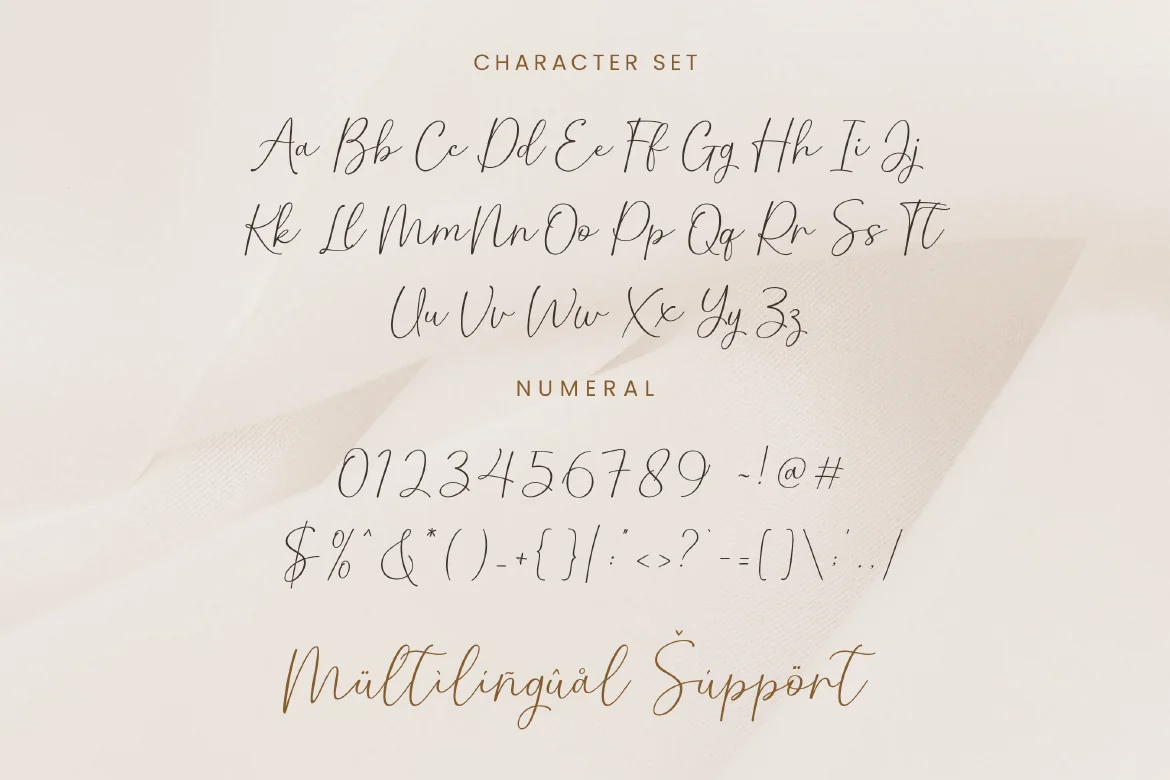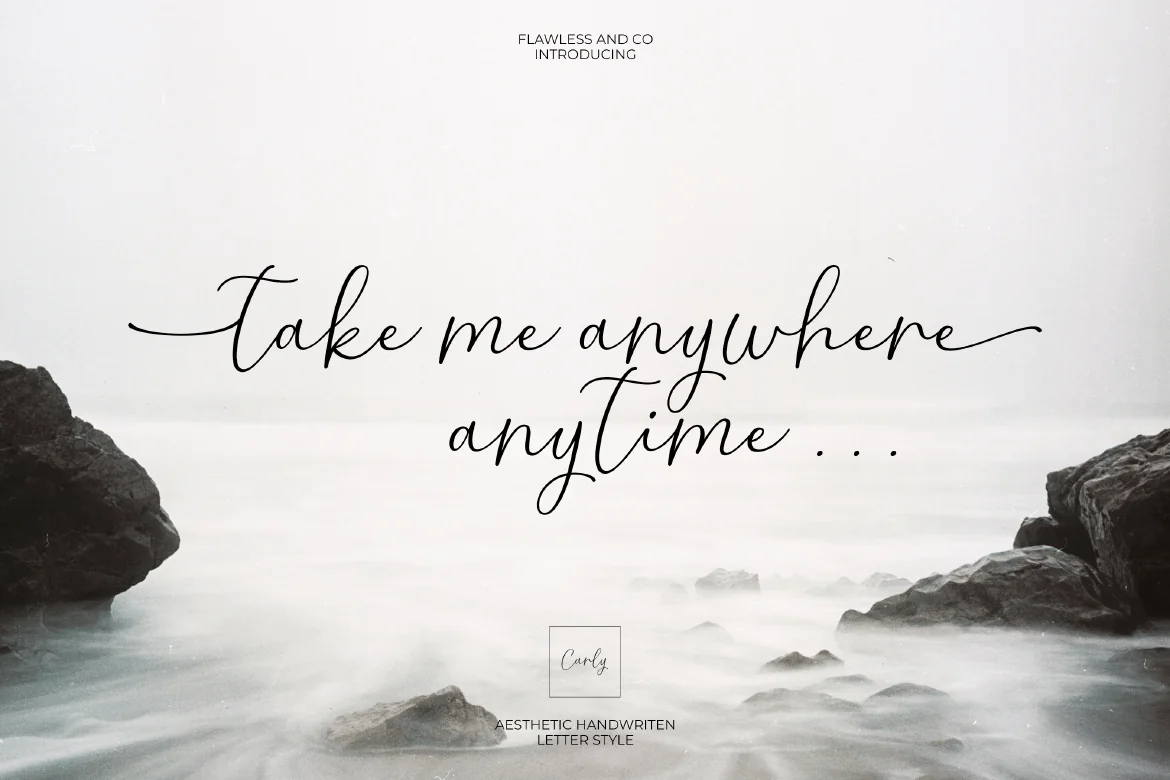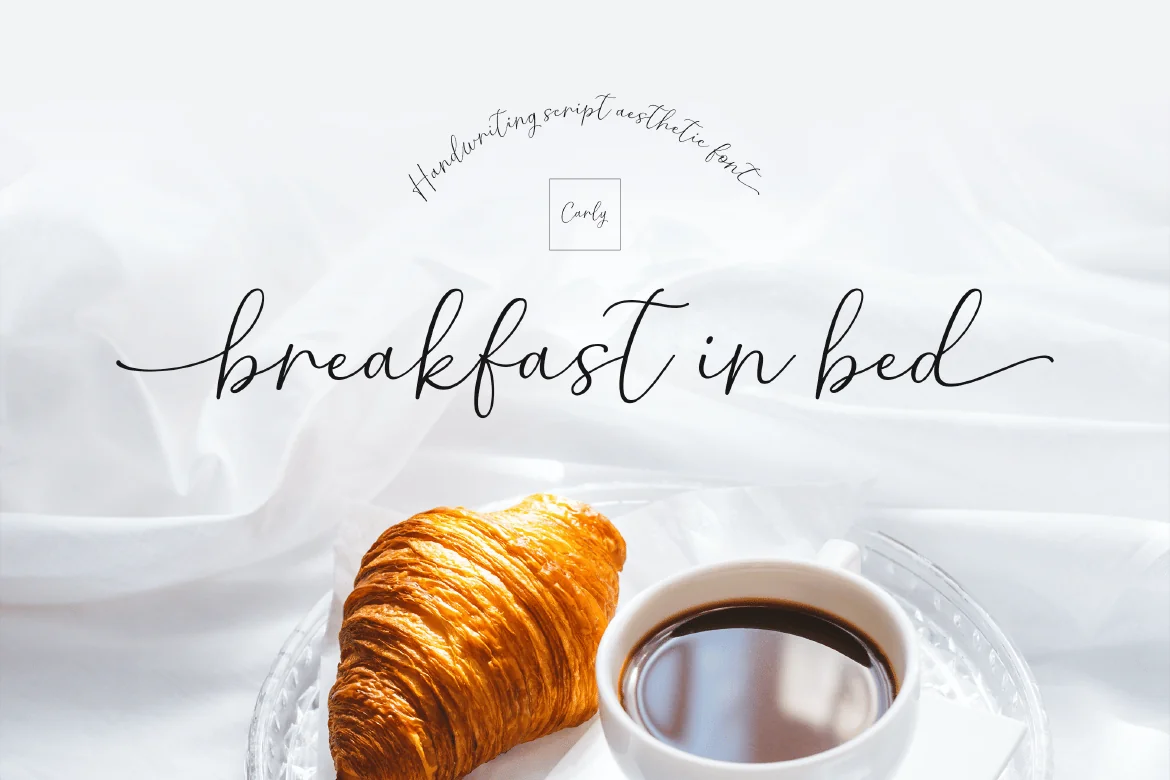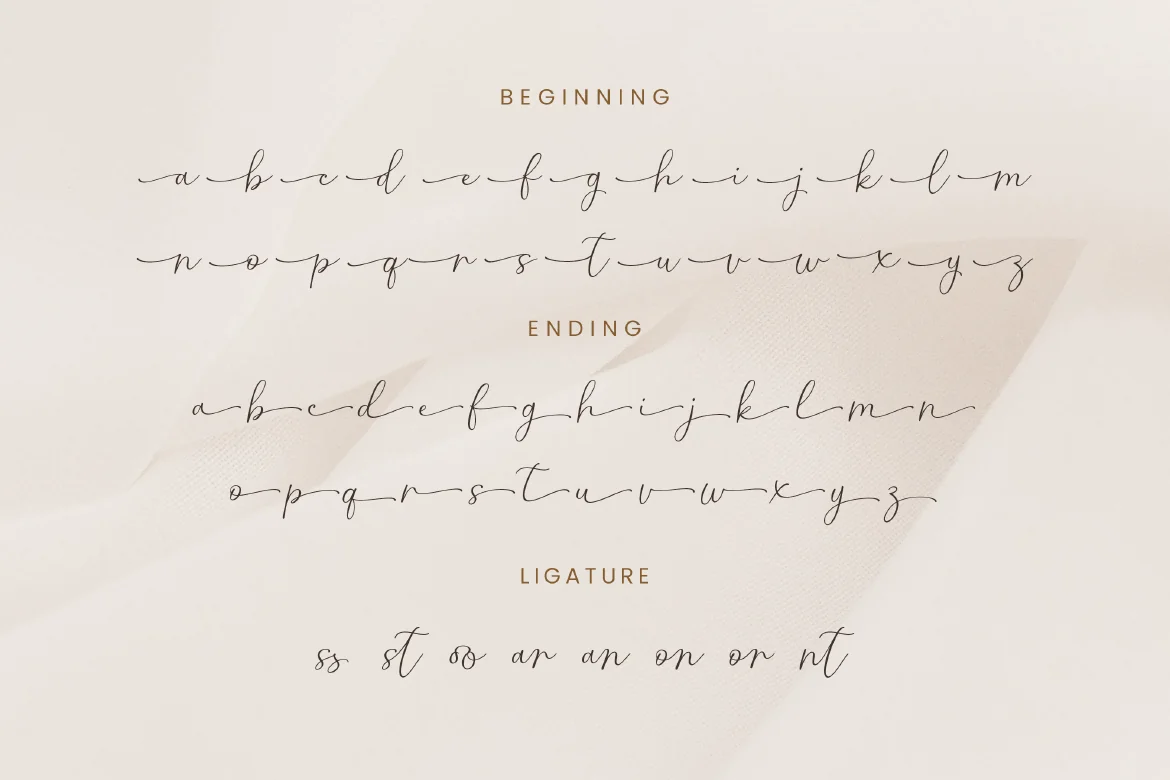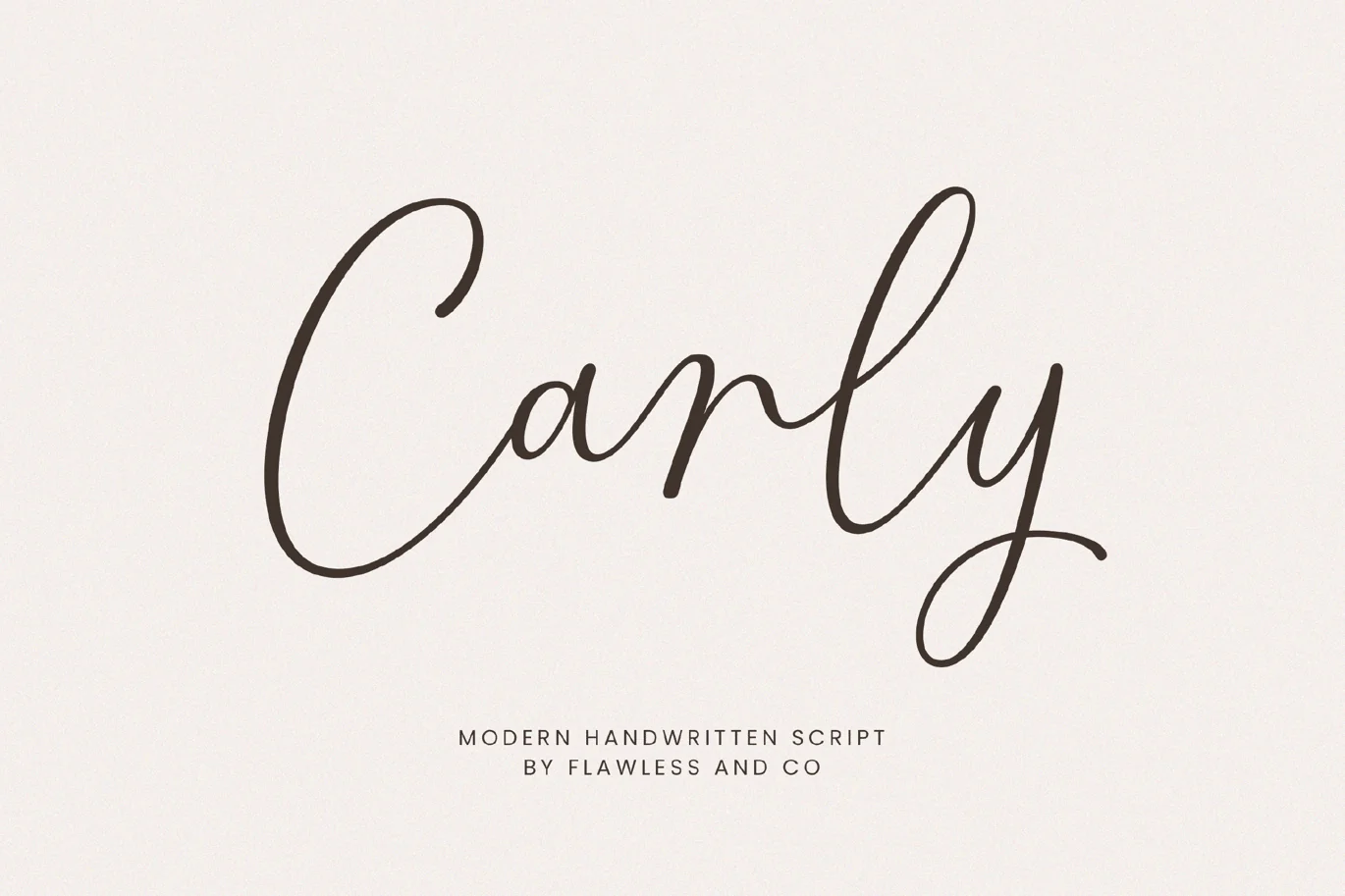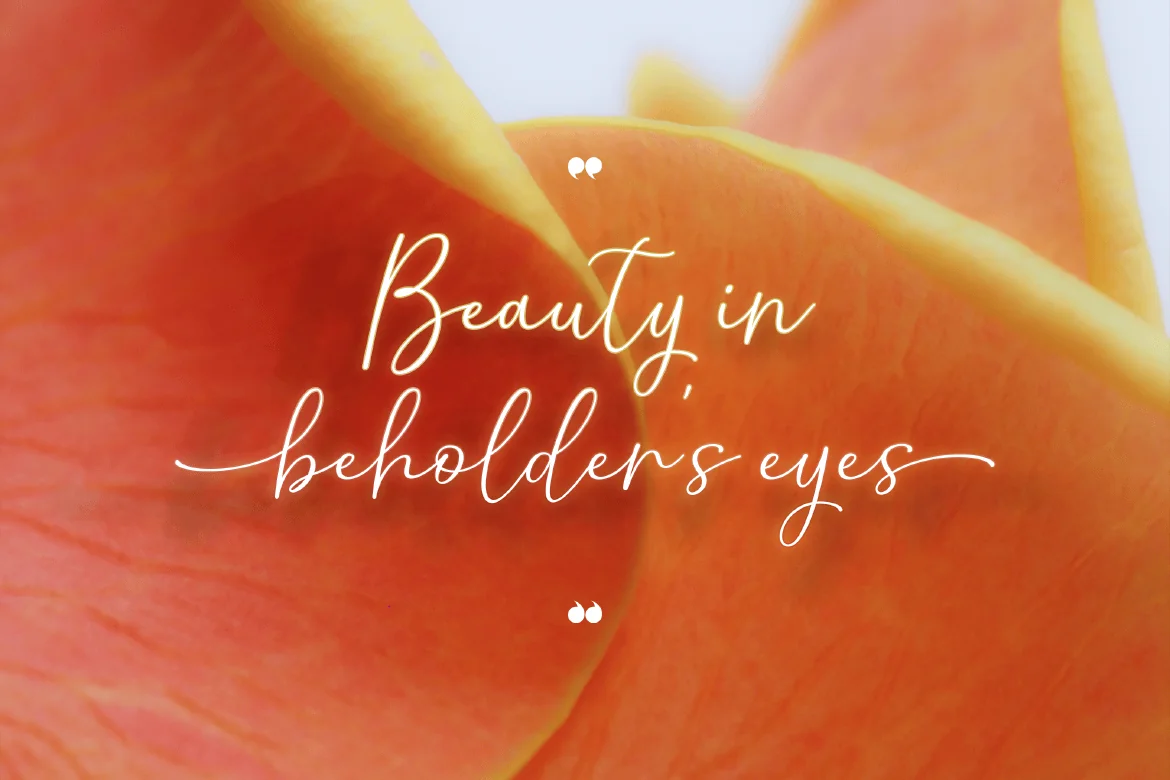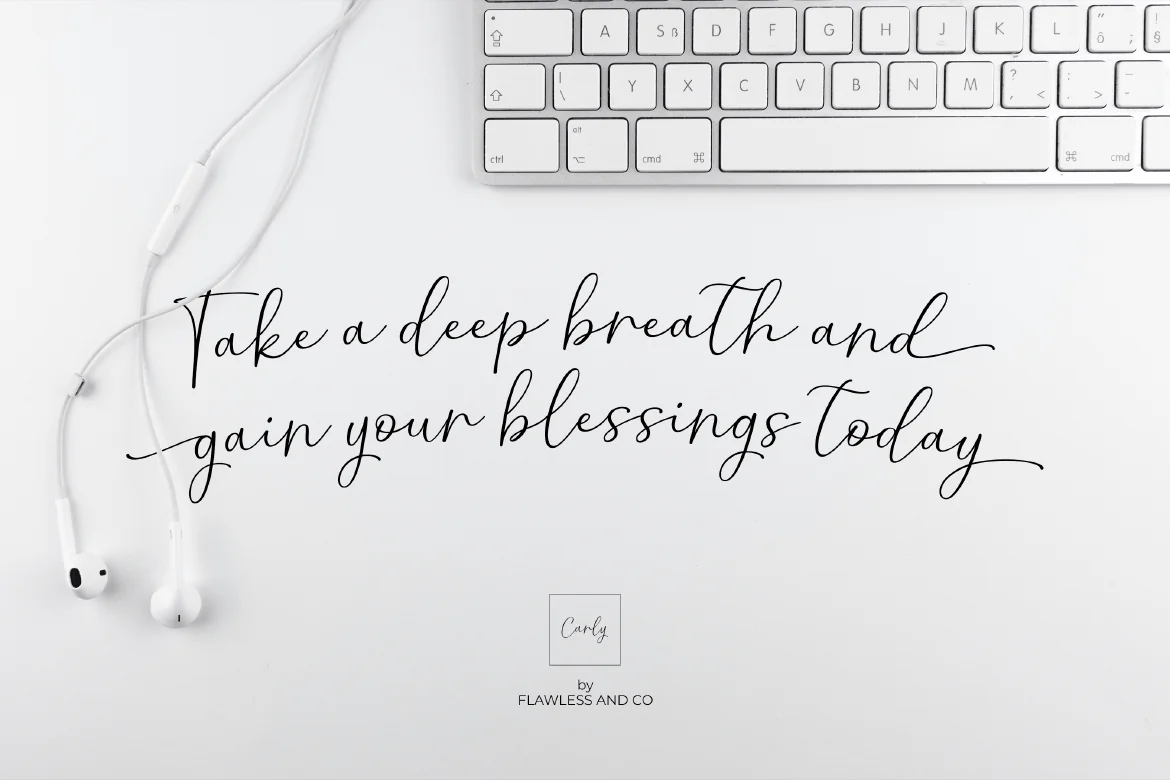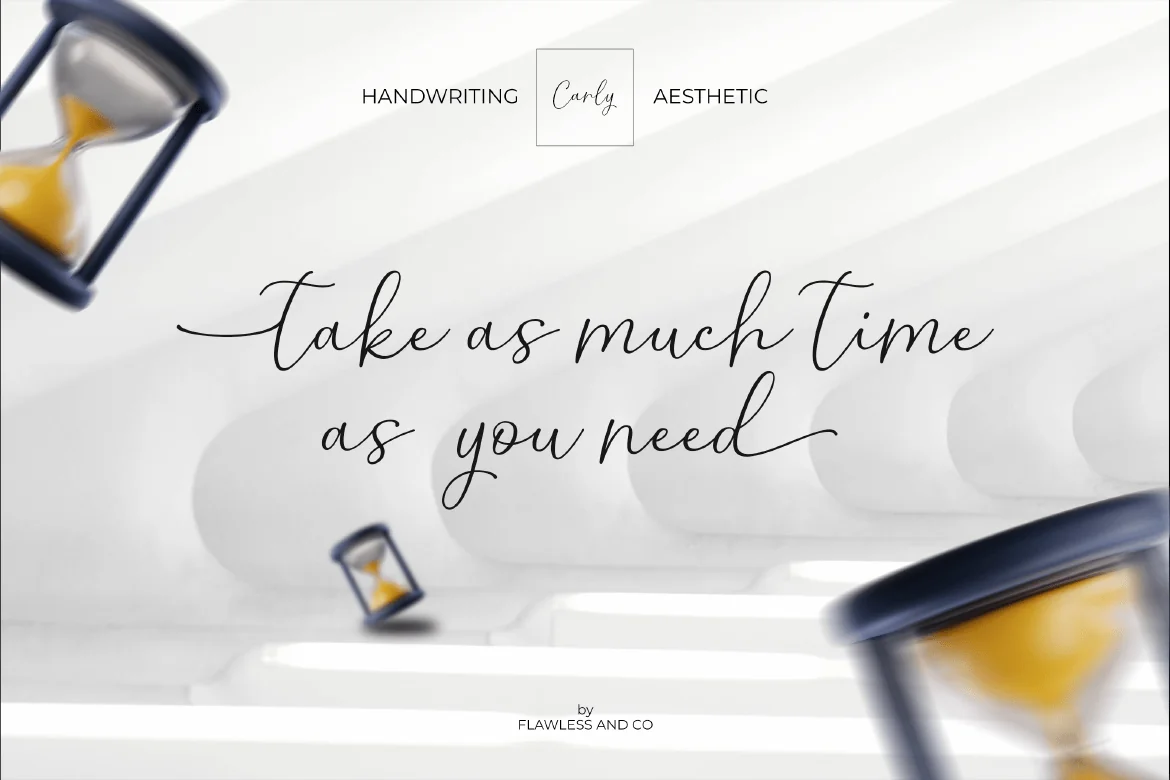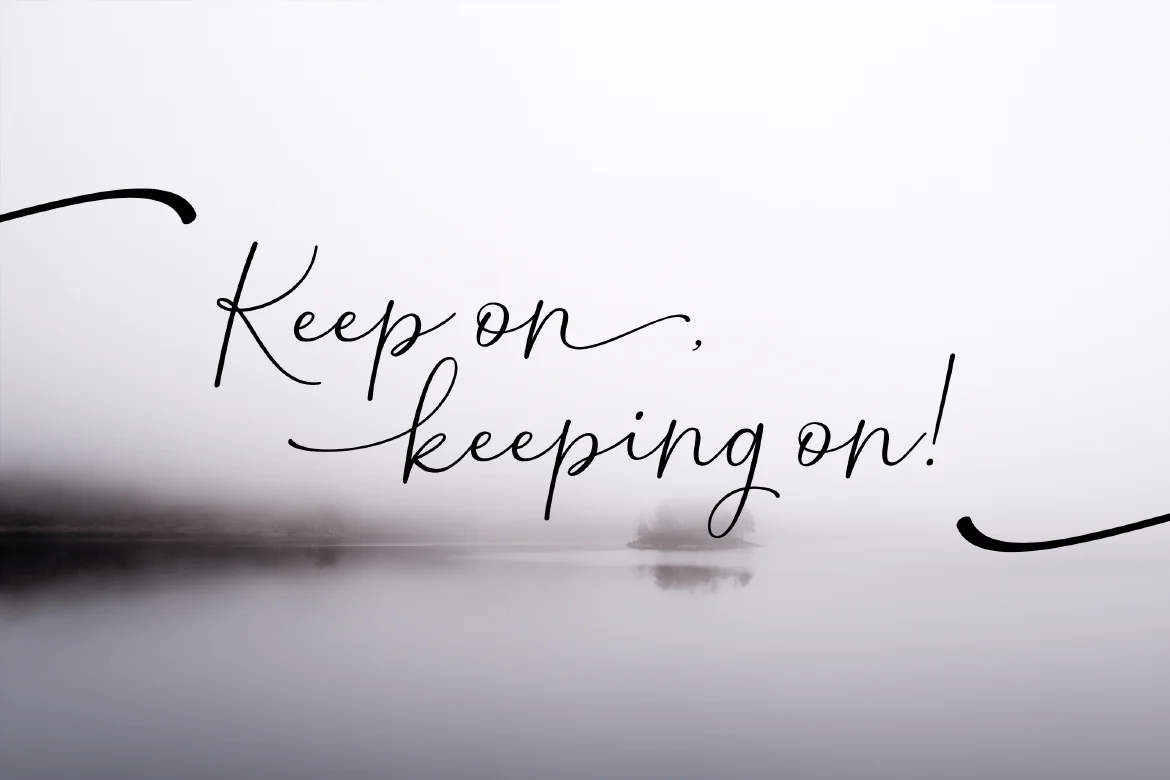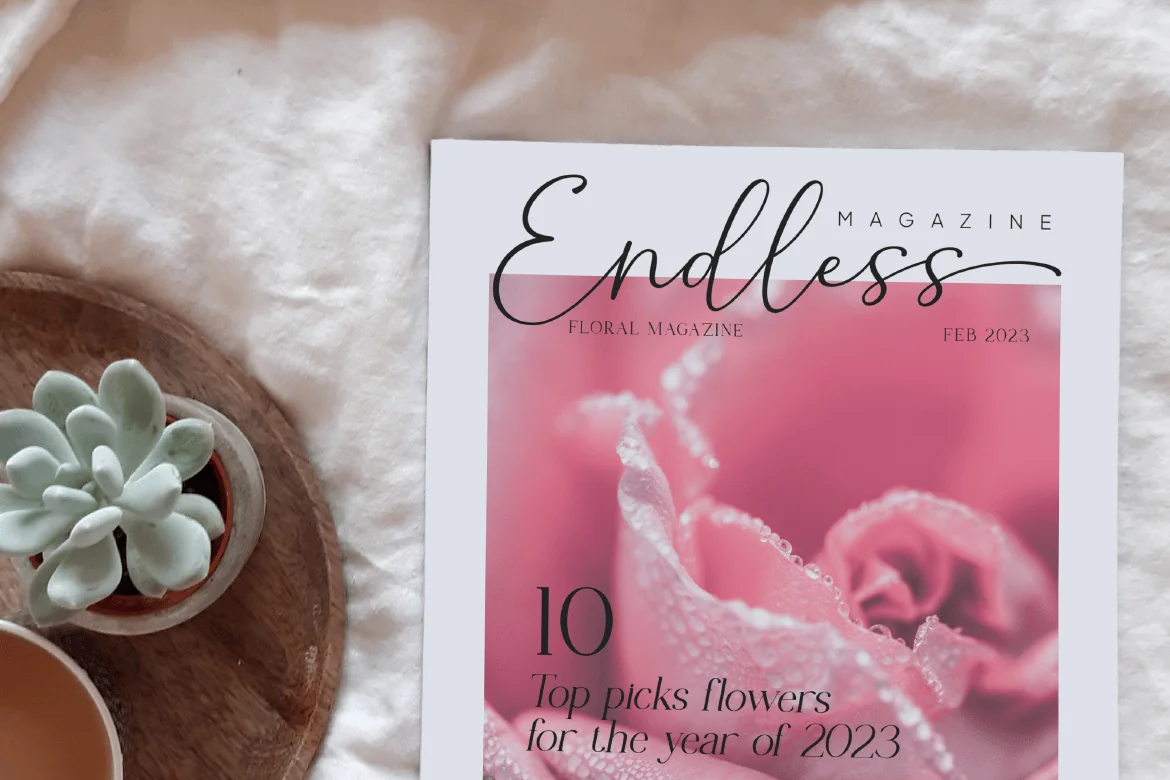
Carly – Handwritten Script Font
Carly Script is a handcrafted script, this style gives a feel of Girly, modern, Suitable for any graphic designs such as branding materials, print, business cards, logo, poster, photography, quotes .etc
Alternate Character